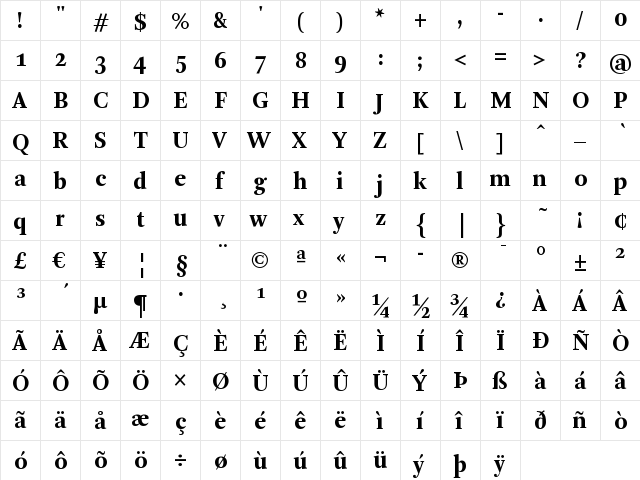
Arnhem-Bold Regular
Design Context for Arnhem-Bold Typeface
Arnhem-Bold takes a measured approach to typography — its balanced proportions and neutral character make it a reliable workhorse for both digital and print work. Its bold stroke weight gives it real presence on the page.